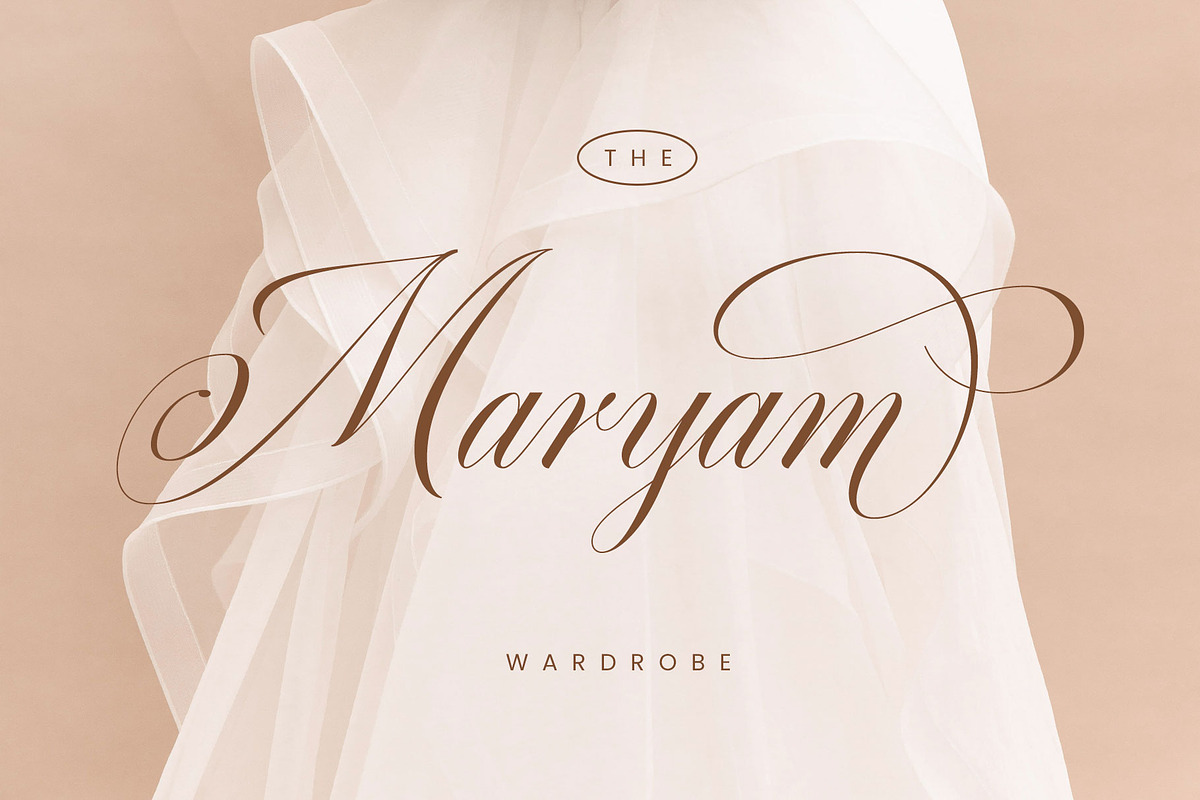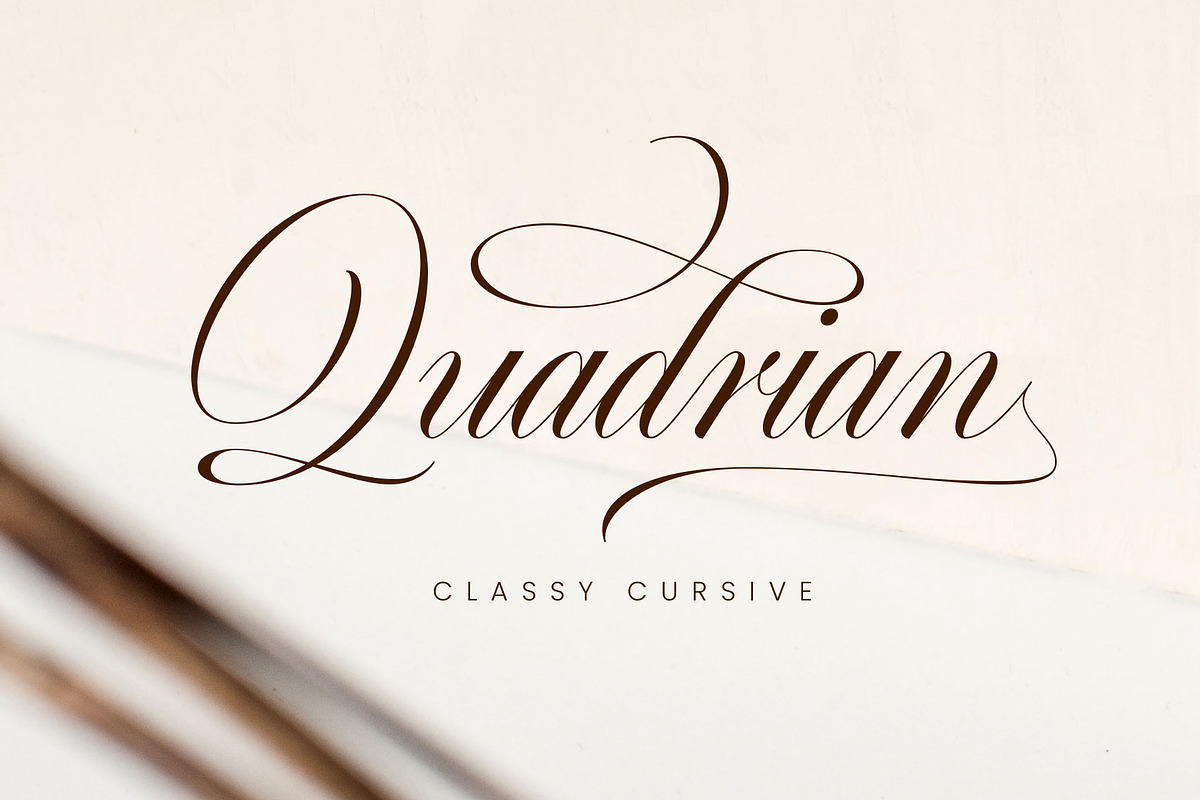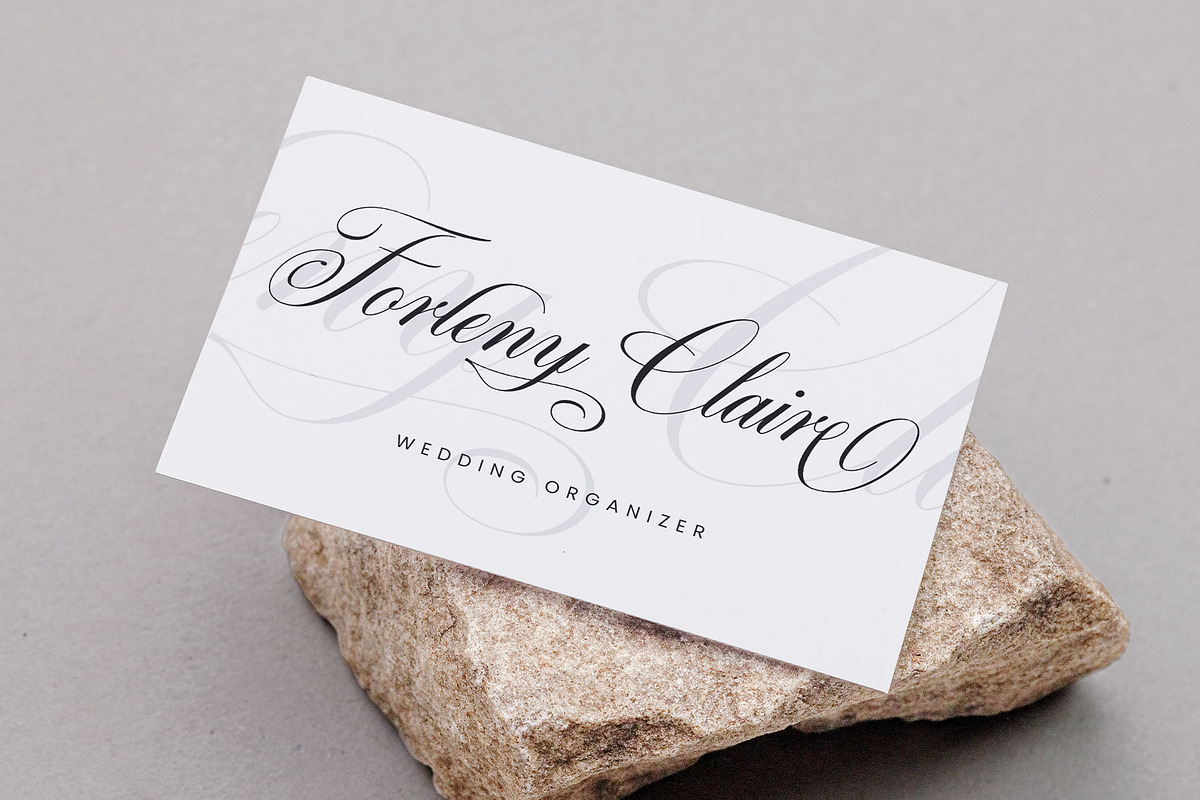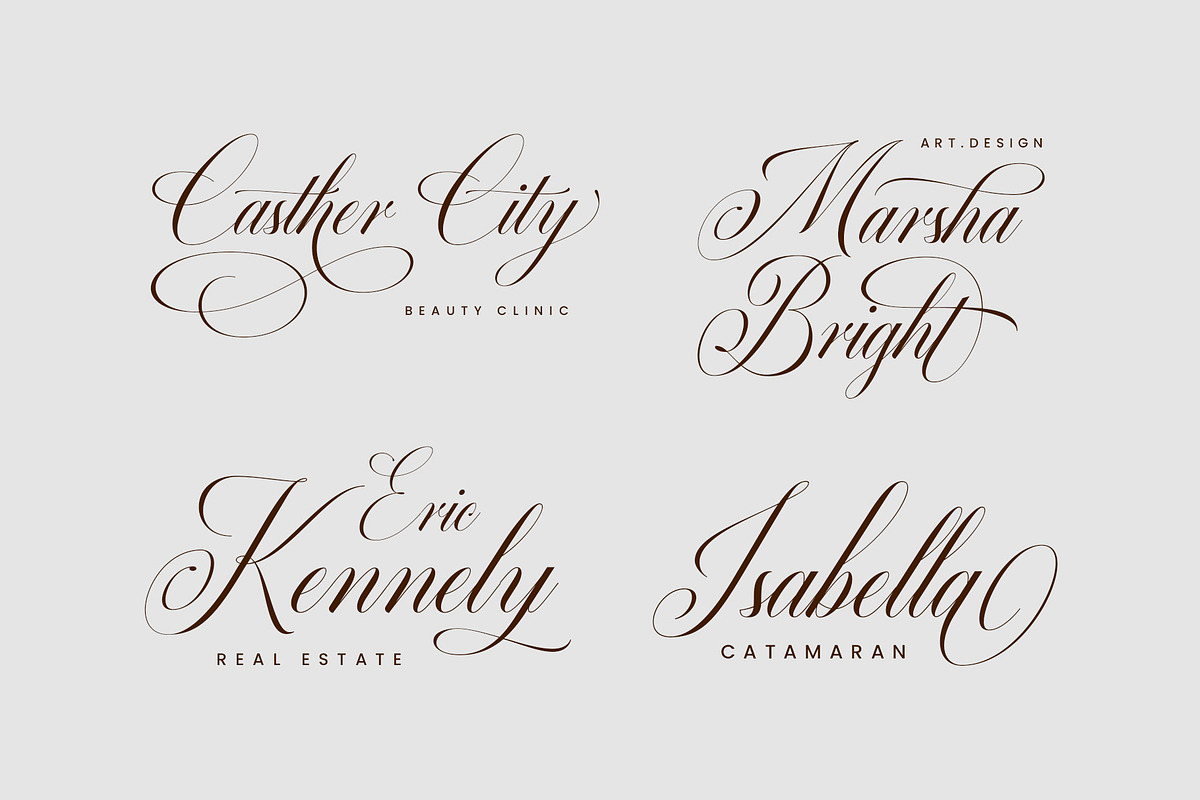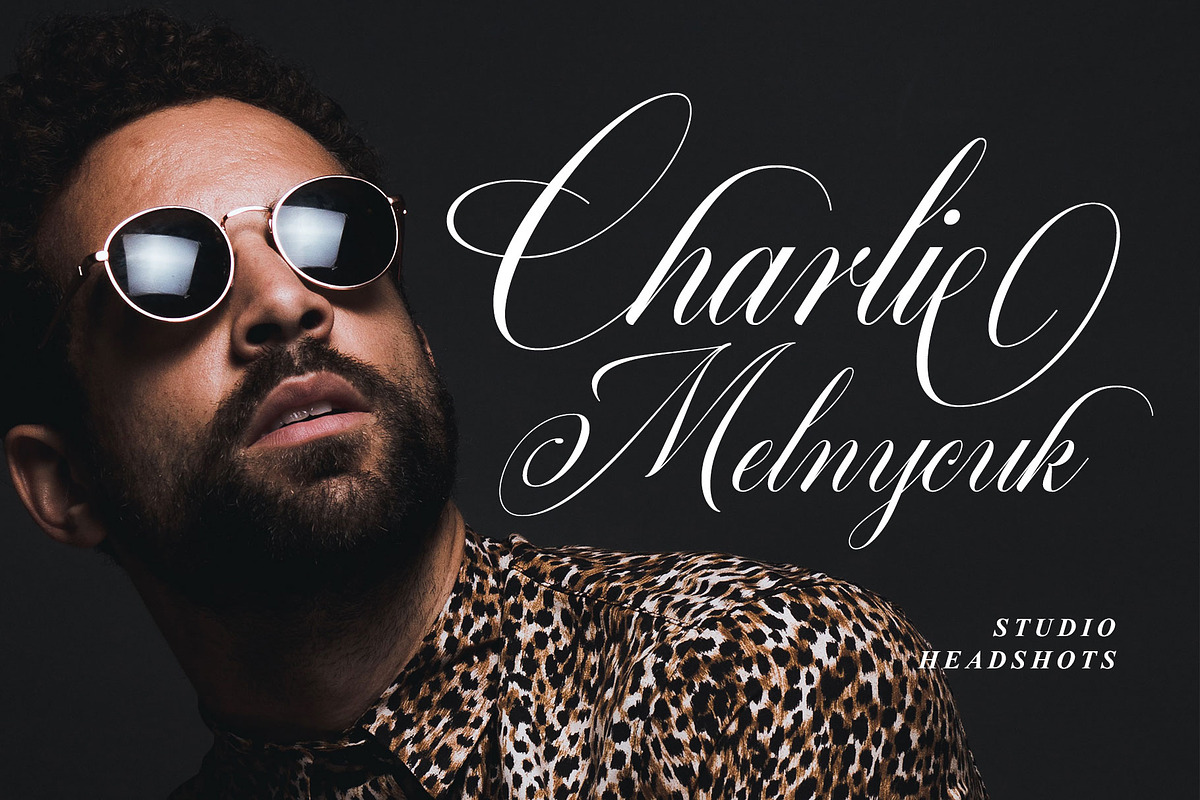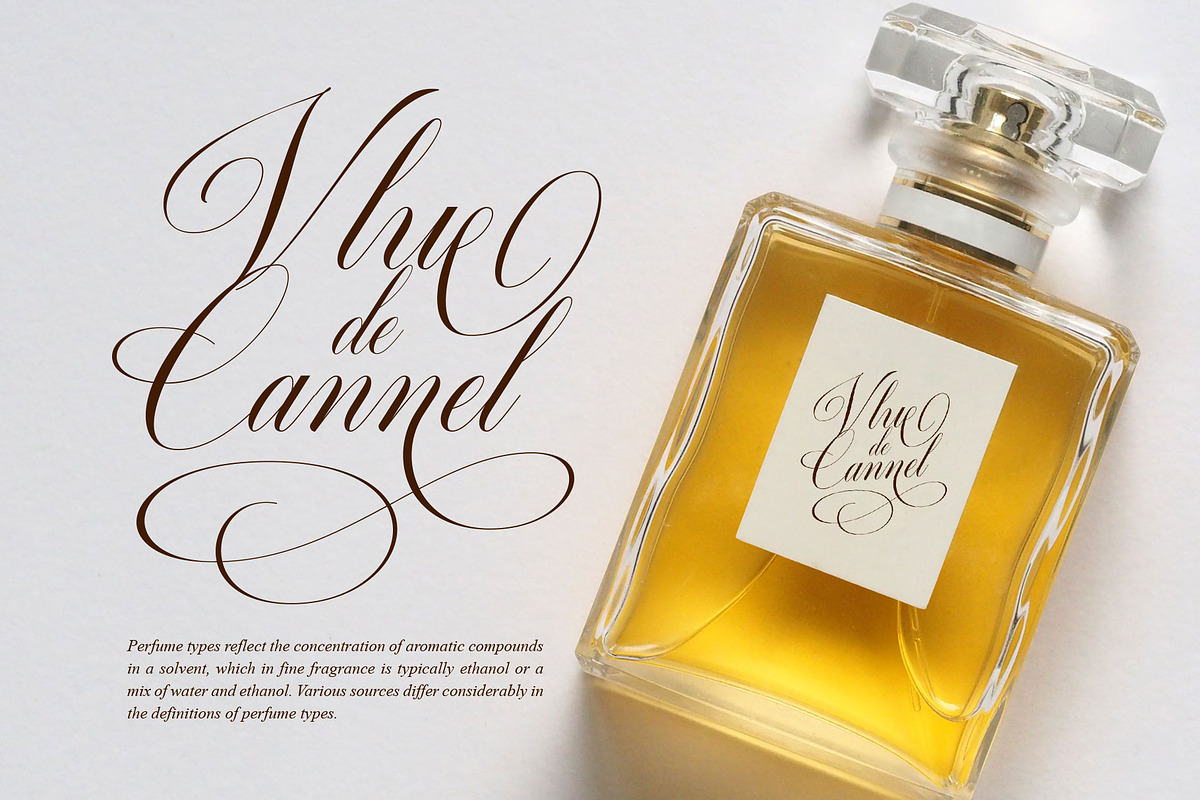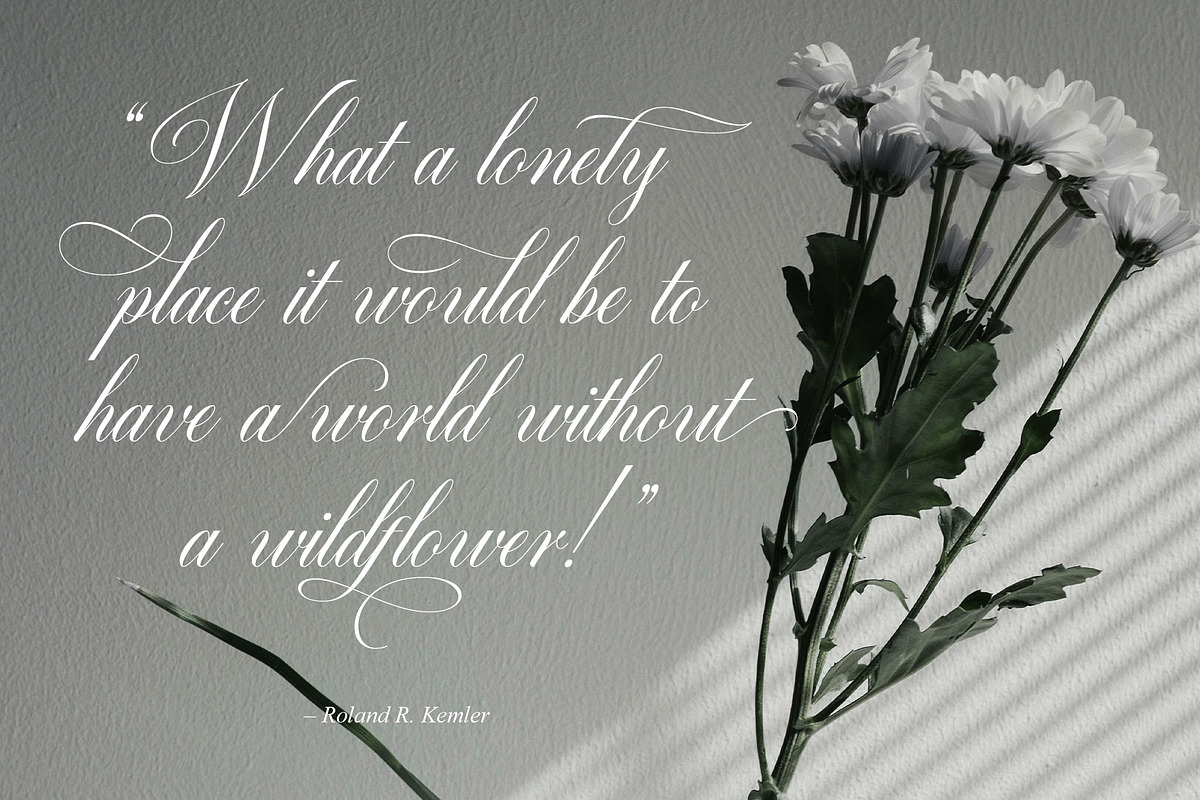
Quadrian - Elegant Script
Say Hello to Quadrian, a modern calligraphy font. Carefully designed with consistent strokes, this beautiful script font offers a minimalist, luxurious and classy feel.
Quadrian is inspired by classical calligraphy. This font is perfect for anything that needs an elegant, beautiful, feminine, and dramatic look. You can apply this font to weddings, invitations, logotypes, romantic quotes, labels, and branding.
Quadrian consists of a full set of characters and is equipped with hundreds of alternative characters that you can use to enhance your designs. A total of 500+ glyphs that you can mix and match and multilingual support!
- Stylistic alternates
- Stylistic set 01 - 20